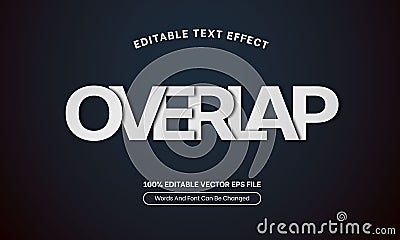
Overlap Shadow Text Effect, Editable Overlapping Font Effect Style Vector Illustration
Overlap shadow text effect editable overlapping font effect style